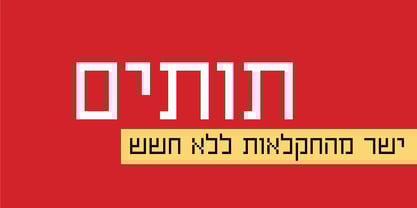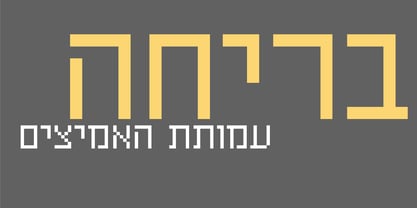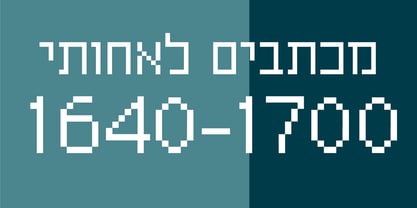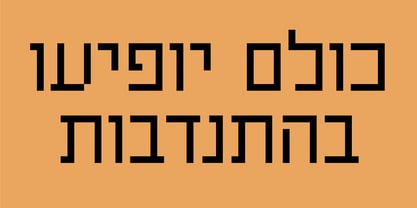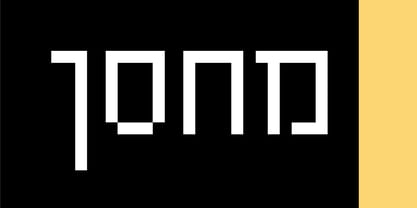
Hermon
by Masterfont
The Hermon Font Family was designed by Udi Oher and published by Masterfont. Hermon contains 1 styles. More about this family
This calligraphic scribble follows the traditional Hebrew type by intensive and free hand drawn lines.
Designers: Udi Oher
Foundry: Masterfont